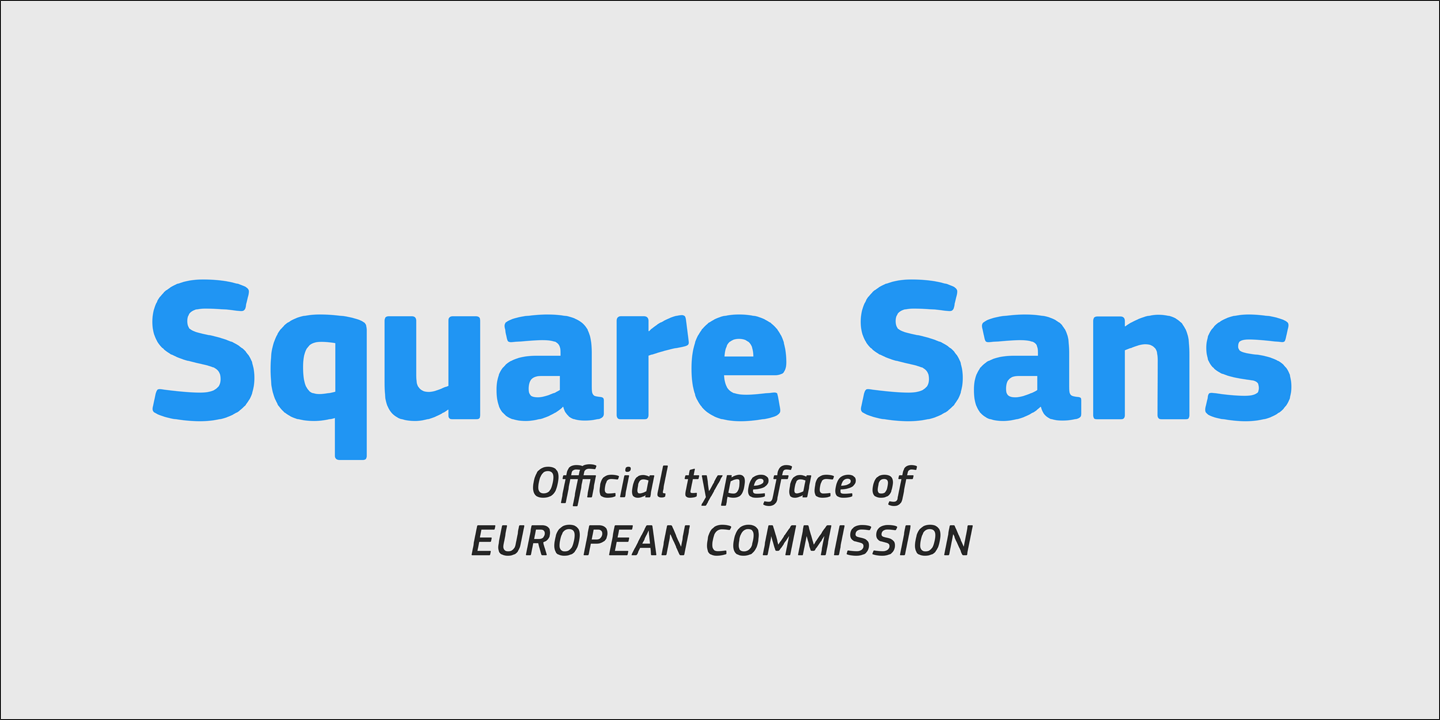
PF Square Sans Pro Font is a highly versatile and modern sans-serif typeface, designed to blend geometric precision with a warm, friendly character. Its square-shouldered yet subtly rounded forms, generous x-height, and consistent stroke weight ensure high legibility and a harmonious typographic presence at all sizes. This makes it an excellent choice for corporate branding, digital interfaces (UI/UX), signage systems, and editorial design. Imagine it providing a clean and approachable feel for a tech company's website, enhancing the readability of annual reports, or creating a sophisticated yet welcoming look for public information displays. This font is also superb for apparel design, packaging for modern consumer goods, and any project where clarity, approachability, and a robust yet friendly visual identity are key. It doesn't just display text; it communicates with confidence and subtle power.
What makes PF Square Sans Pro Font so exciting is its remarkable ability to balance the crispness of a square sans-serif with a softened, more humanistic touch. The slightly rounded edges and comprehensive character set, including over 270 symbols for various uses (packaging, public areas, transportation, etc.), emphasize its robust and versatile nature. This unique combination allows designers to create visually compelling content that is both highly functional and aesthetically pleasing. It’s a font that speaks with a self-assured yet warm voice, making it ideal for brands and content creators who want to convey reliability, innovation, and a contemporary, well-rounded aesthetic. Its comprehensive multilingual support, including Latin, Greek, and Cyrillic, further enhances its global appeal.
The PF Square Sans Pro Font family is exceptionally comprehensive, offering an impressive range of 12 styles to provide extensive design flexibility and nuanced typographic expressions. You can generally expect to find a rich array of options to support diverse layout needs, such as:
PF Square Sans Pro Thin
PF Square Sans Pro Thin Italic
PF Square Sans Pro Light
PF Square Sans Pro Light Italic
PF Square Sans Pro Regular
PF Square Sans Pro Italic
PF Square Sans Pro Medium
PF Square Sans Pro Medium Italic
PF Square Sans Pro Bold
PF Square Sans Pro Bold Italic
PF Square Sans Pro ExtraBlack
PF Square Sans Pro ExtraBlack Italic
These numerous weights and styles, combined with 19 special OpenType features like small caps, fractions, and ordinals, empower designers to create complex visual hierarchies, emphasize important information, and maintain a consistent, polished, and contemporary look throughout all digital and print assets. The opportunity to utilize PF Square Sans Pro Font Free Download is an excellent way to experience its versatile elegance and modern appeal for your personal projects.